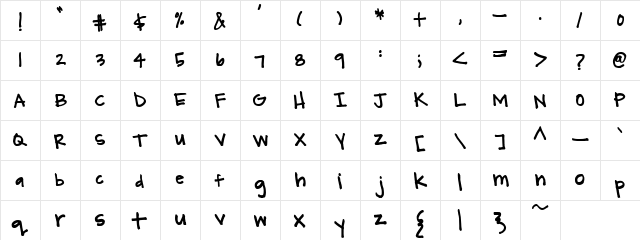
CK Allison Medium
Design Context for CK Allison Typeface
CK Allison takes a measured approach to typography — its balanced proportions and neutral character make it a reliable workhorse for both digital and print work.